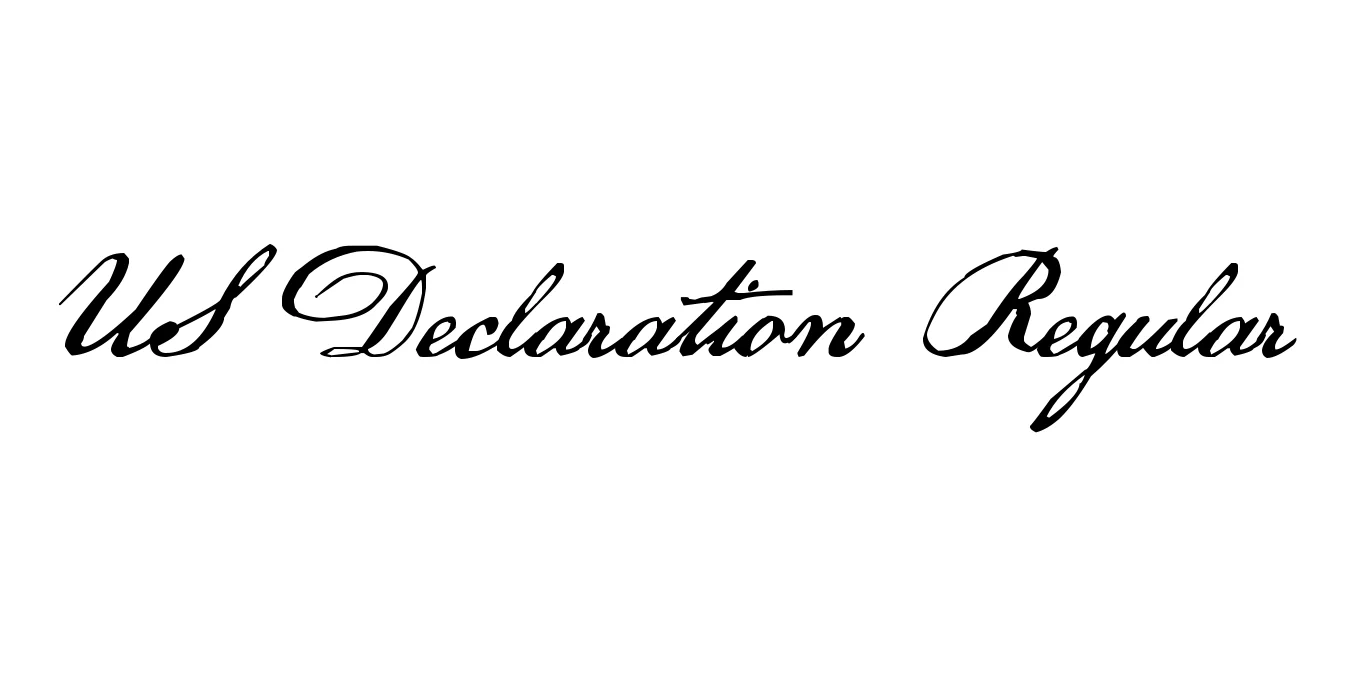
US Declaration Regular
Designed by Robert Allison
| Font Name | US Declaration |
| Category | Script / Historical Calligraphy |
| Designer | Robert Allison |
The US Declaration Regular font is a meticulous digital recreation of the historical handwriting found on the original United States Declaration of Independence. Authored to mimic the elegant and sophisticated penmanship of the late 18th century, this typeface captures the essence of the script penned by Timothy Matlack. It serves as a bridge between modern digital typography and the artistry of classical calligraphy, preserving the stylistic nuances of quill-based writing.
Featuring dramatic sweeping curves and rhythmic strokes, this font is highly evocative of American history and formal tradition. The US Declaration Regular is frequently selected for projects that require an air of authority, heritage, and timelessness. Its intricate details and classic aesthetic make it a staple for designers looking to infuse their work with a sense of historical gravitas and patriotic sentiment.
US Declaration Regular Best Uses
Excellent for certificates, diplomas, and official letters.
Popular for high-end wedding invitations and historical galas.
Used in headers for books or posters with a 17th or 18th-century theme.
Suited for brands wanting to establish a sense of history or legacy.